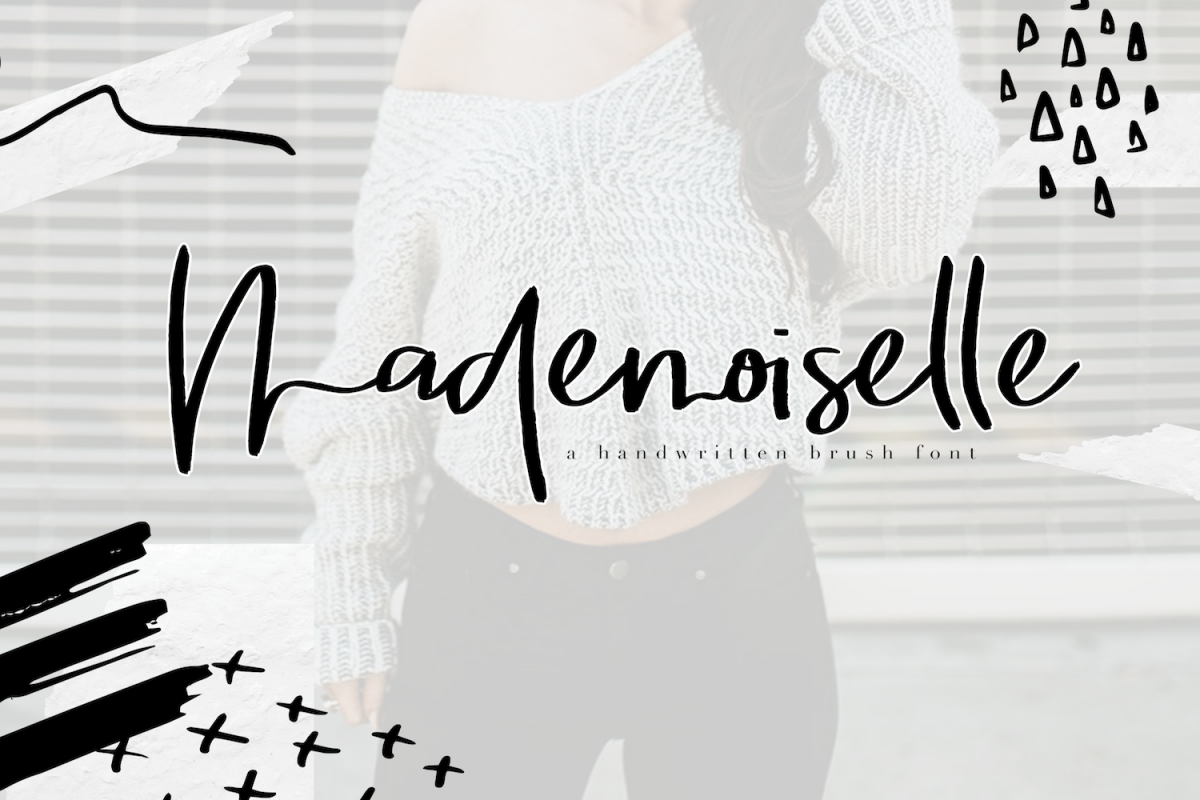
Mademoiselle - Chic Brush Font
Mademoiselle
Mademoiselle is a chic, handwritten brush font.
This font is perfect for quotes, headings, blogs, logos, invitations and more!
This font does include accent characters.